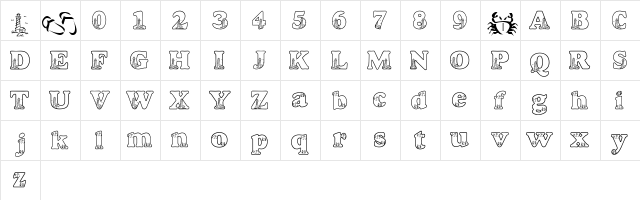
LMS Beach Scrawl Regular
Design Context for LMS Beach Scrawl Typeface
LMS Beach Scrawl is a composed and adaptable typeface that performs quietly and consistently across a wide range of design contexts.
Pro Tip: Use LMS Beach Scrawl in both headline and body roles to test its range before committing to a single application.